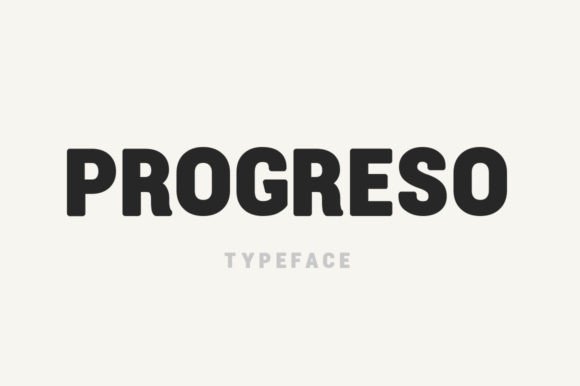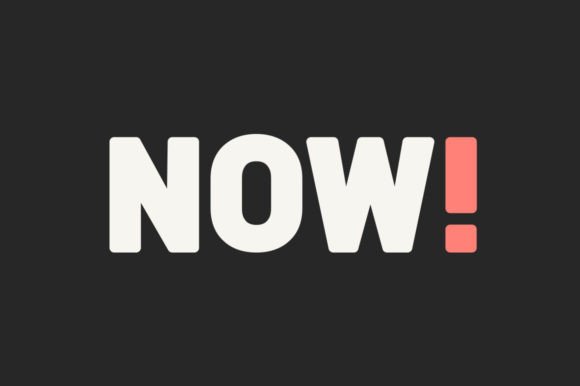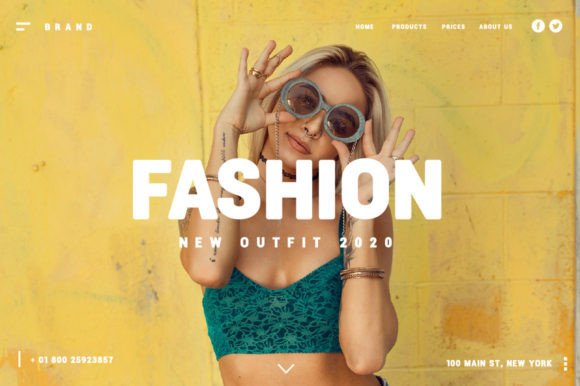
Introduction to Progreso Font
Progreso is a fresh and clean sans serif display font.
Use it for product packaging, branding, or other projects that need bold and daring typography .
Key Features of Progreso Font
Why Choose Progreso Font?
Progreso Font offers exceptional quality and versatility, making it a valuable addition to your design toolkit. Whether you’re creating for personal projects or commercial use, Progreso Font delivers professional results.